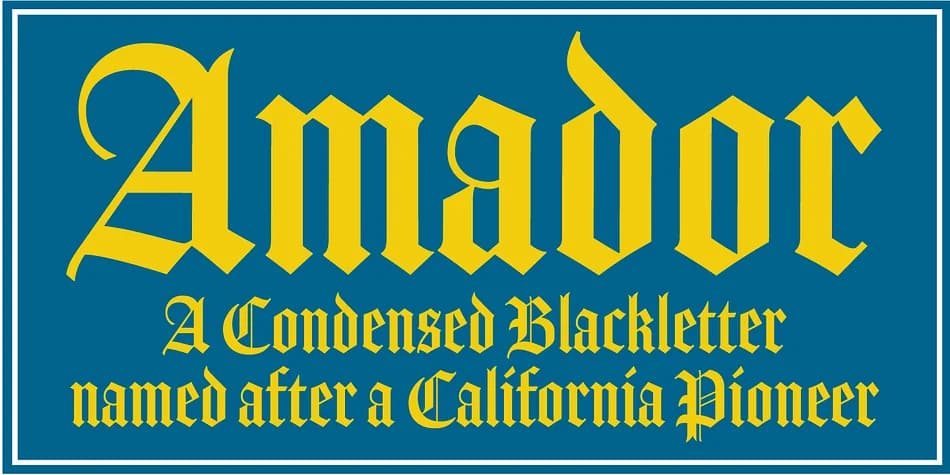
Amador by Parkinson Type Design is a blackletter font rooted in early twentieth-century craft ideals. Jim Parkinson drew inspiration from the lettering traditions of Frederic Goudy and Rudolf Koch, channeling that same commitment to timeless, hand-rendered forms. Originally published as a Type 1 font in 2004, Amador received a thoughtful modernization in 2012 when it was rebuilt as an OpenType file, making it far simpler to integrate into contemporary design workflows without sacrificing its fundamental character.
The font excels for formal wedding invitations, vintage beer bottle labels, hand-drawn calligraphy-inspired branding, and ornamental storefront signage. Its carefully balanced letterforms remain legible even when scaled down to smaller sizes, a quality that reflects Amador's heritage in the pre-digital era when blackletter typefaces had to work across multiple printing techniques. You can set it for decorative text in invitation suites and menus or deploy it boldly for headlines, cover lettering, and display work that commands immediate attention. The typeface carries forward the philosophy that good letterforms improve through deliberate restraint and honest respect for historical precedent, making it particularly valuable for designers who prize authenticity over the pull of contemporary trends.
- Ornate, Gothic
- Logos, Certificates
- medieval themes, band merch, and tattoo lettering
- a clean sans-serif for body text
Amador Font is a blackletter font that shines as a display or heading face. Pair it with a clean serif or sans-serif font for body text β the contrast creates a clear hierarchy while the two styles stay balanced and easy to read.